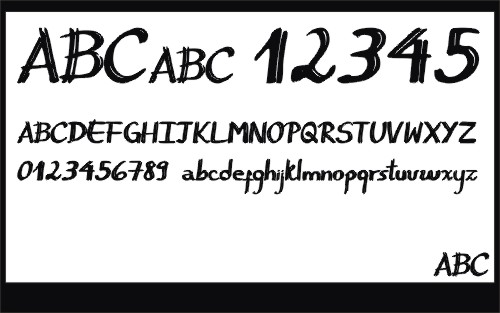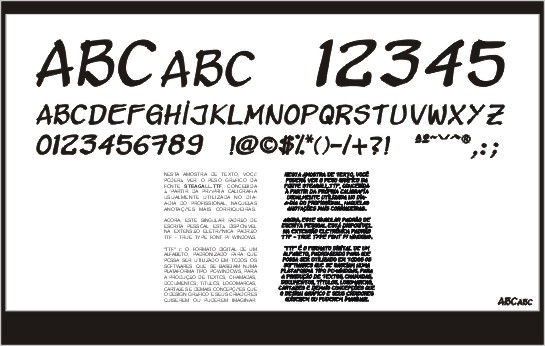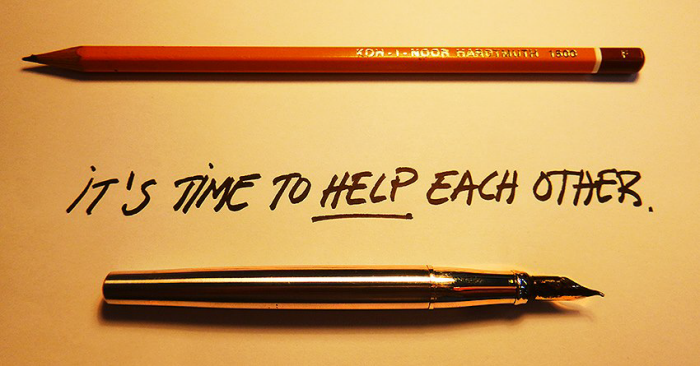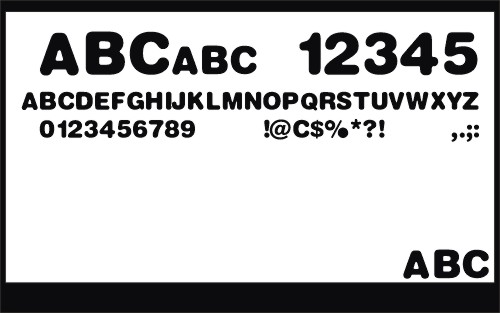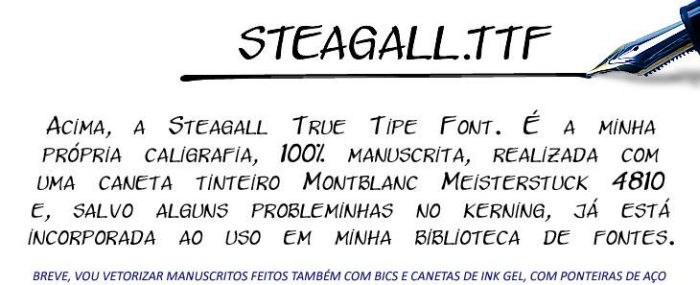
STEAGALL.TTF CALIGRAPHIC FONT - Nice TTF font made it from my own handletterings. The original scanned images was oversized till an A³ paper and them, rasterized and tehm, shrunked to a letter-size like.
OGASSAWARA .TTF CALIGRAPHIC FONT - This is the font of a Beauty Young trainee Brazilian-Japanese Gal, wich I teach her into the fascinating world of E-Typography. She makes A THOUSAND of .A. letters, .B., .C. and so on... until I shout the desireable ( at least, on her point-of-view ) OK, THIS IS A REALLY FINE .A. LETTER !!! ... ;)
SWISS STICK .TTF FONT - This font is the end of a L000G studing-benchmark, laboratory, prototypes journeys into the world of GLUES, ADESIVES and VINIL BUMPER STICKS, untill I found the perfect geometry of a font wich can not will whipped away in a CAR WASH or Stinky Fingers of some, WELL, evil street person... ;)
The font holds strongly into the surfaces, thanks to the commented Perfect Geometry, lasting MORE THAN 10 YEARS in a car.